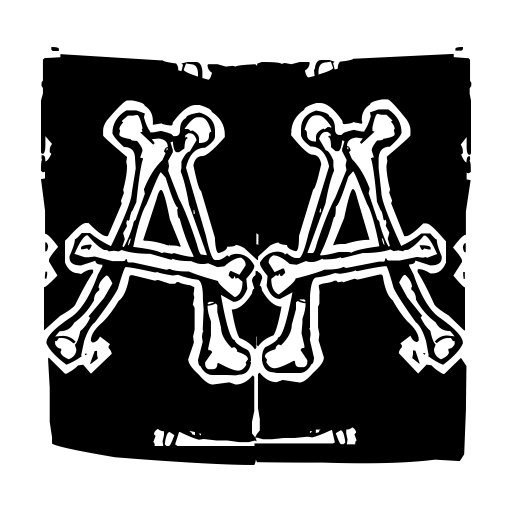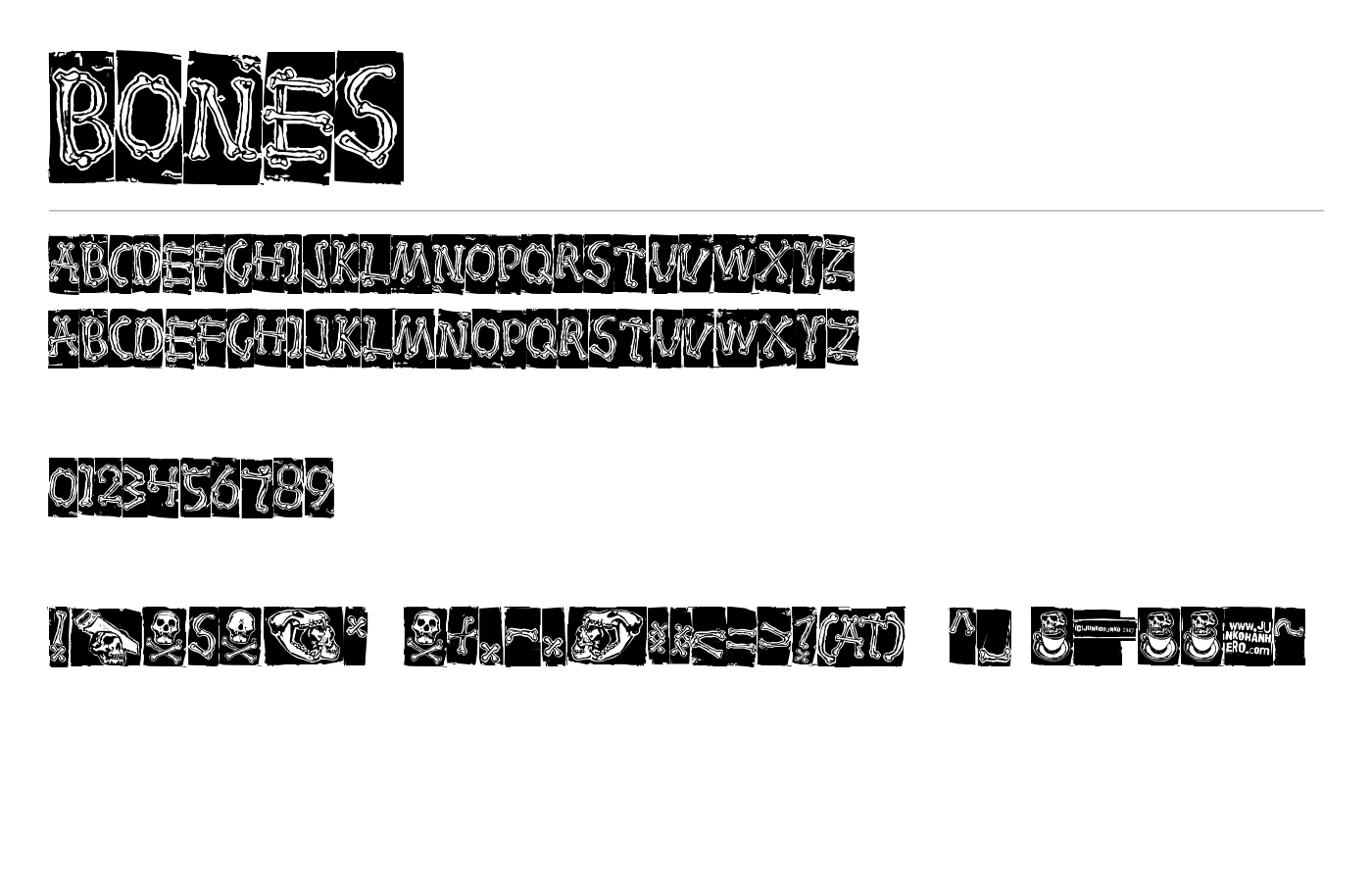
Bones Font is a bold, decorative display typeface featuring a unique skeletal design that gives each letter a spooky, hand-drawn look. Its uppercase-only style with uneven strokes and bone-like shapes makes it perfect for Halloween themes, horror projects, and edgy branding. This font works best for attention-grabbing headlines, posters, and creative packaging where a playful yet eerie vibe is desired.
Bones Font
About Bones Font
| Font family | Bones Font |